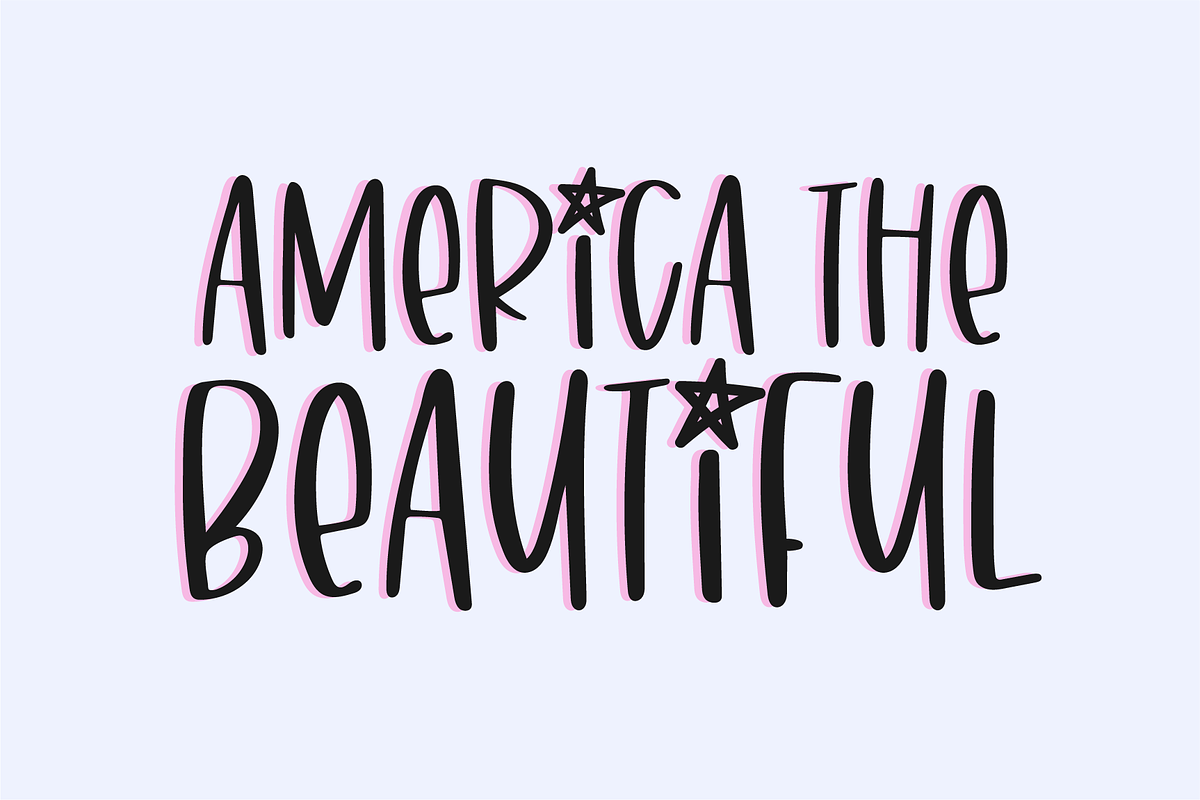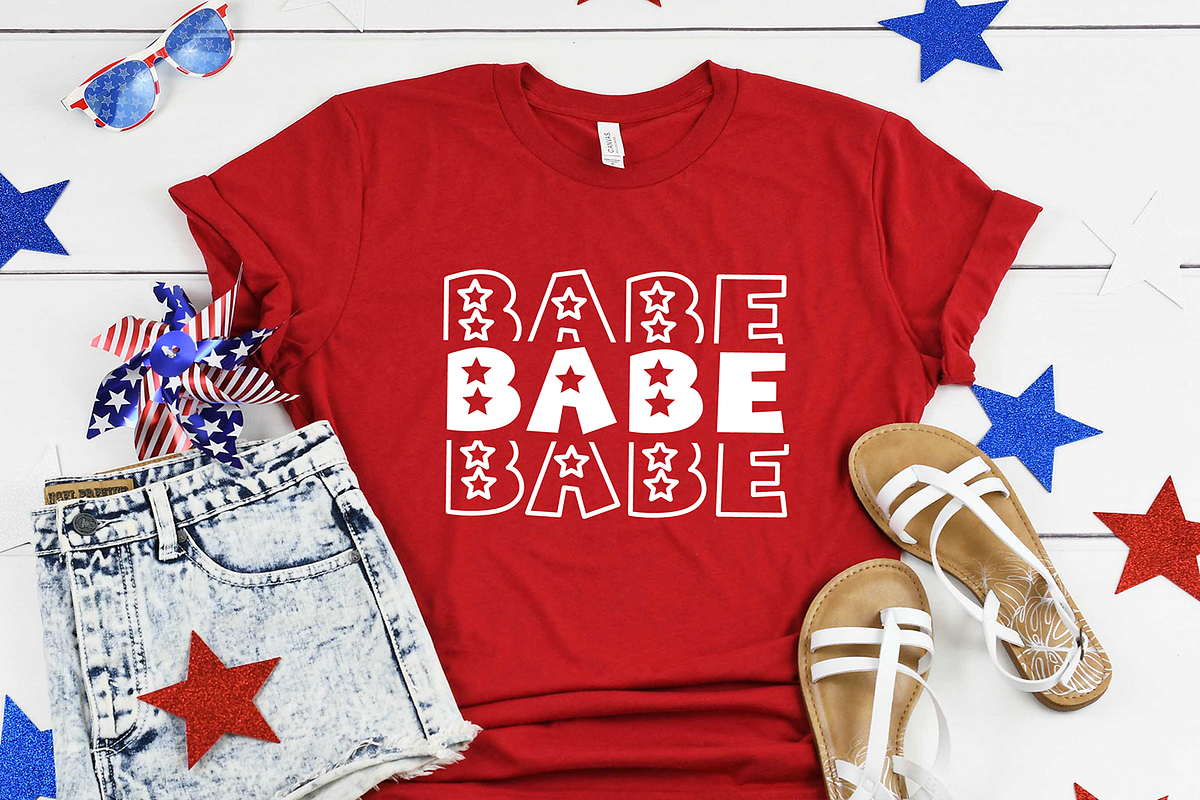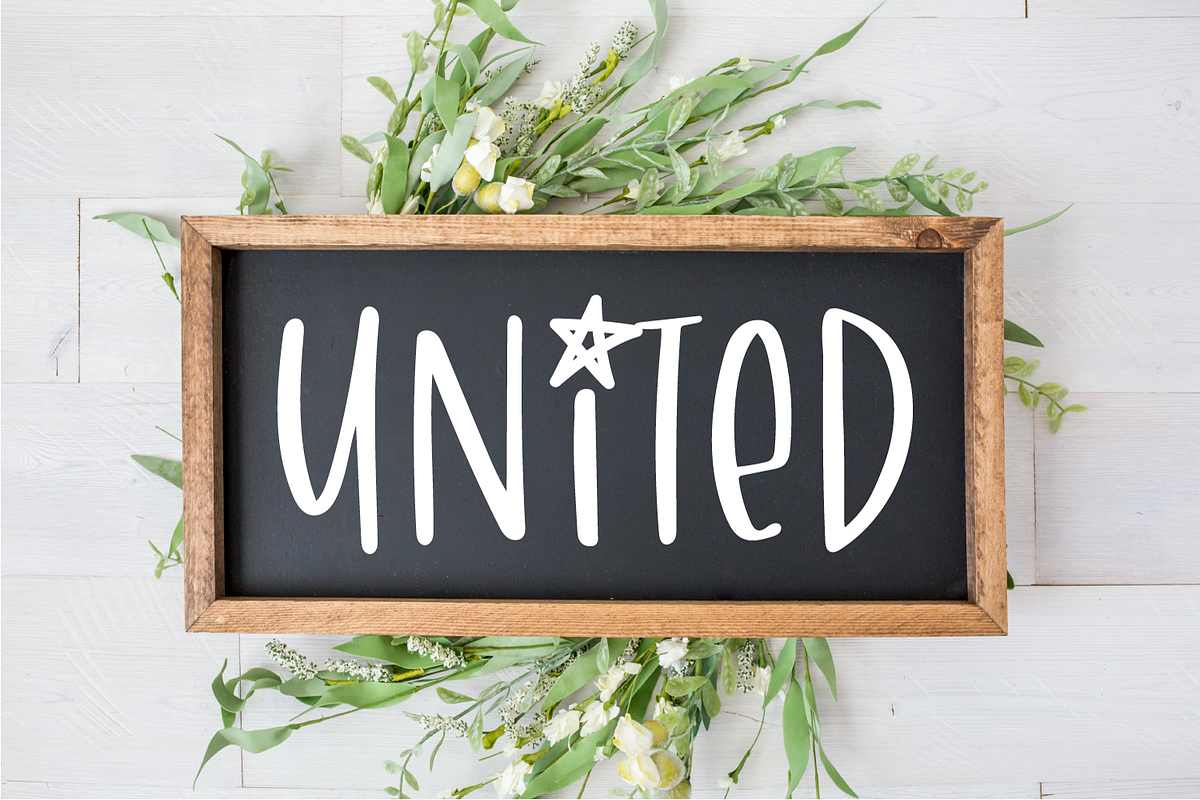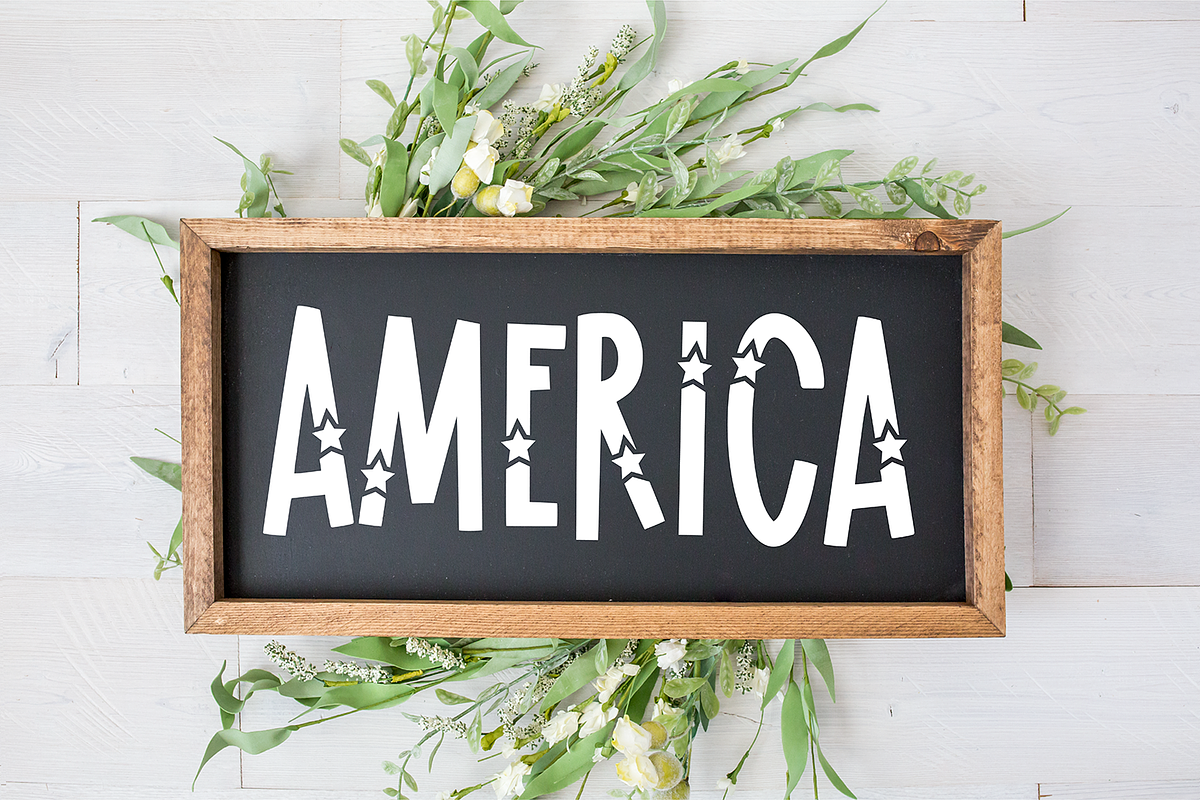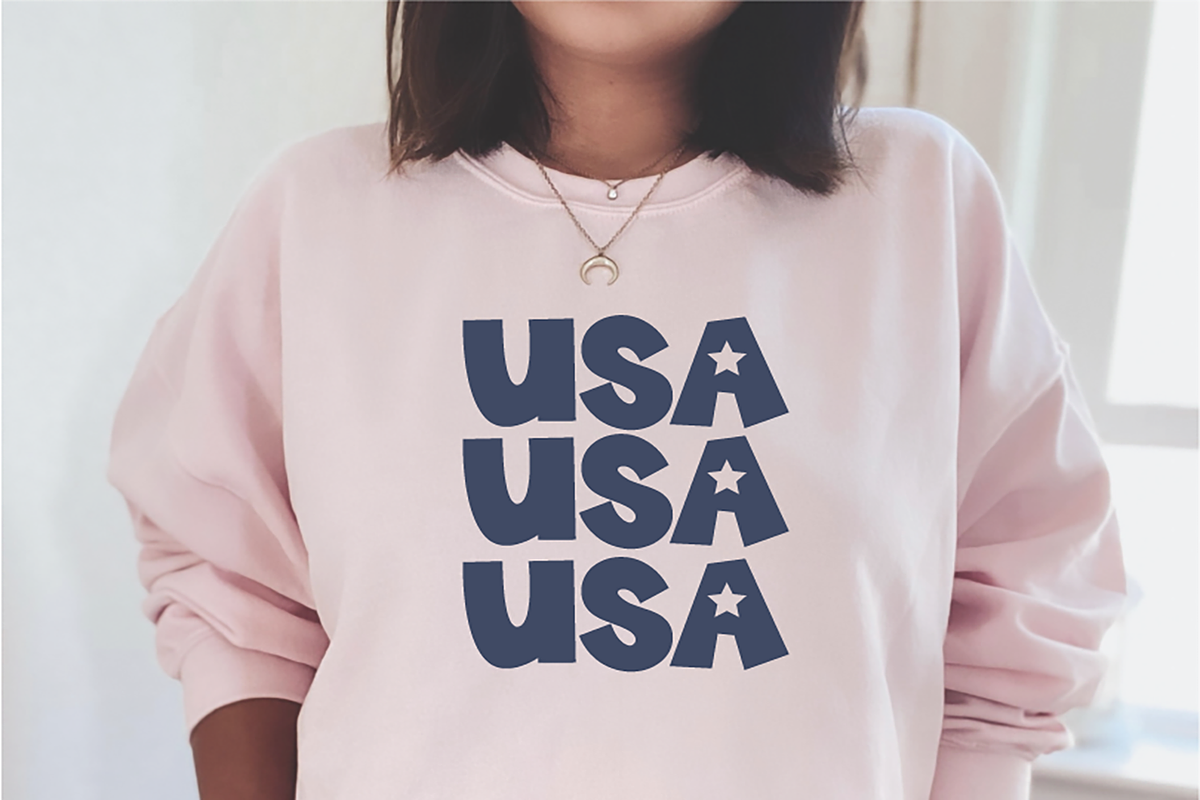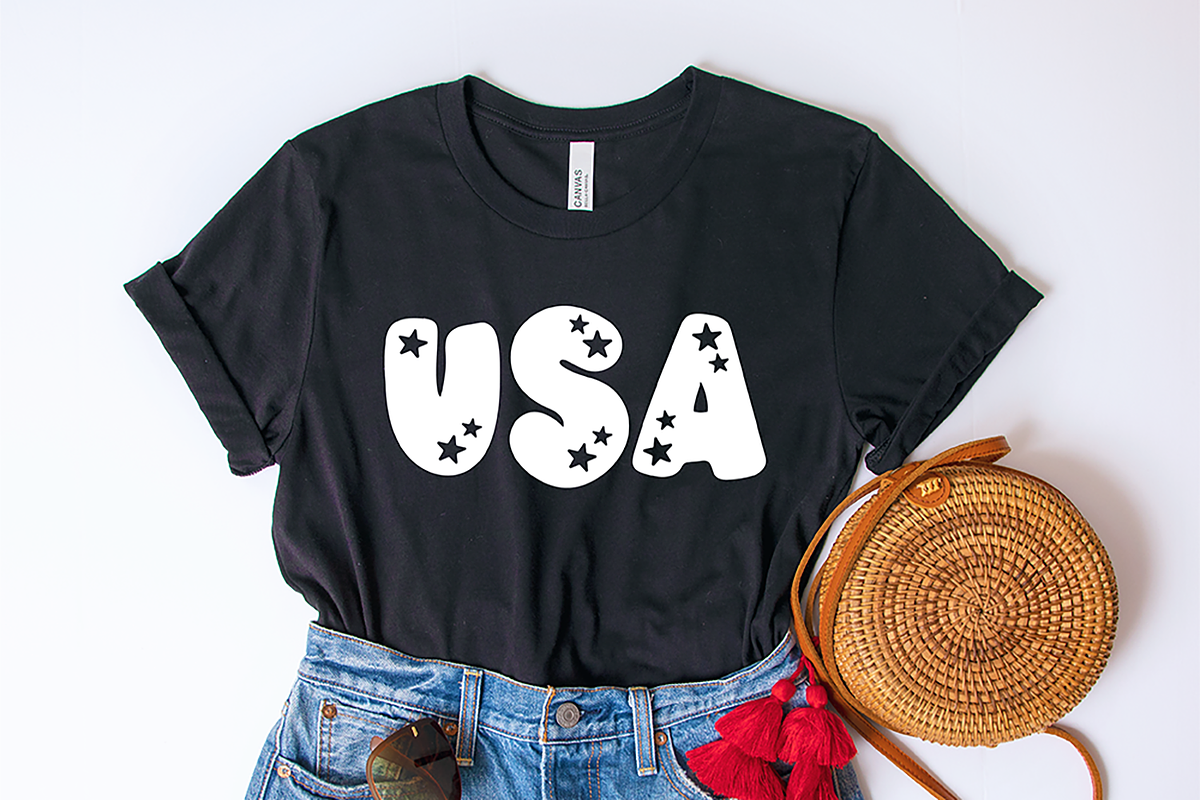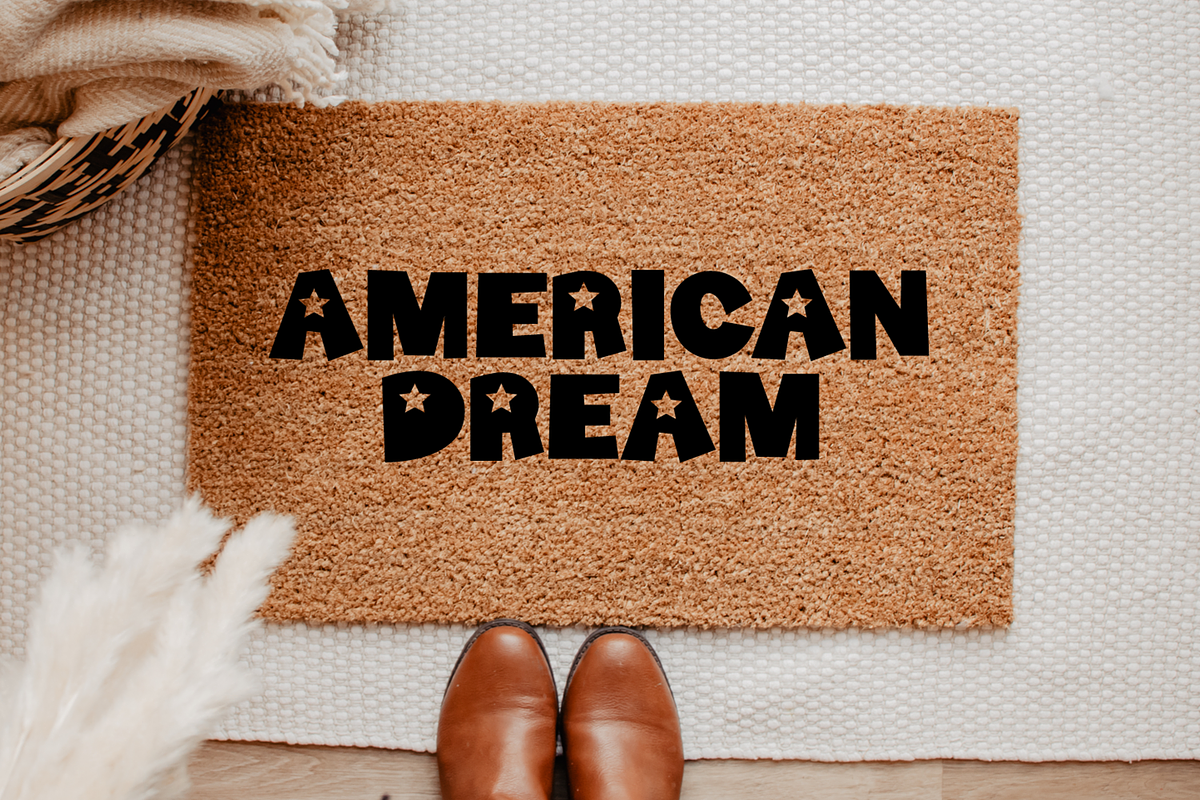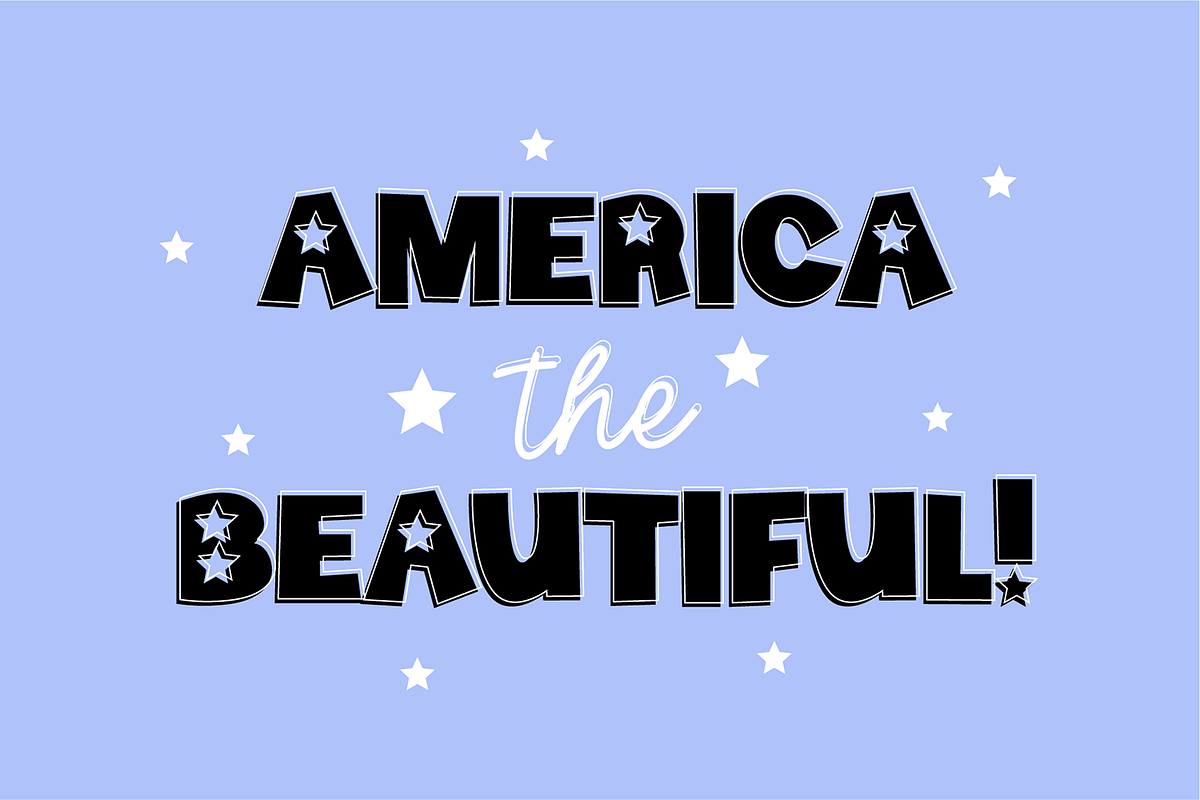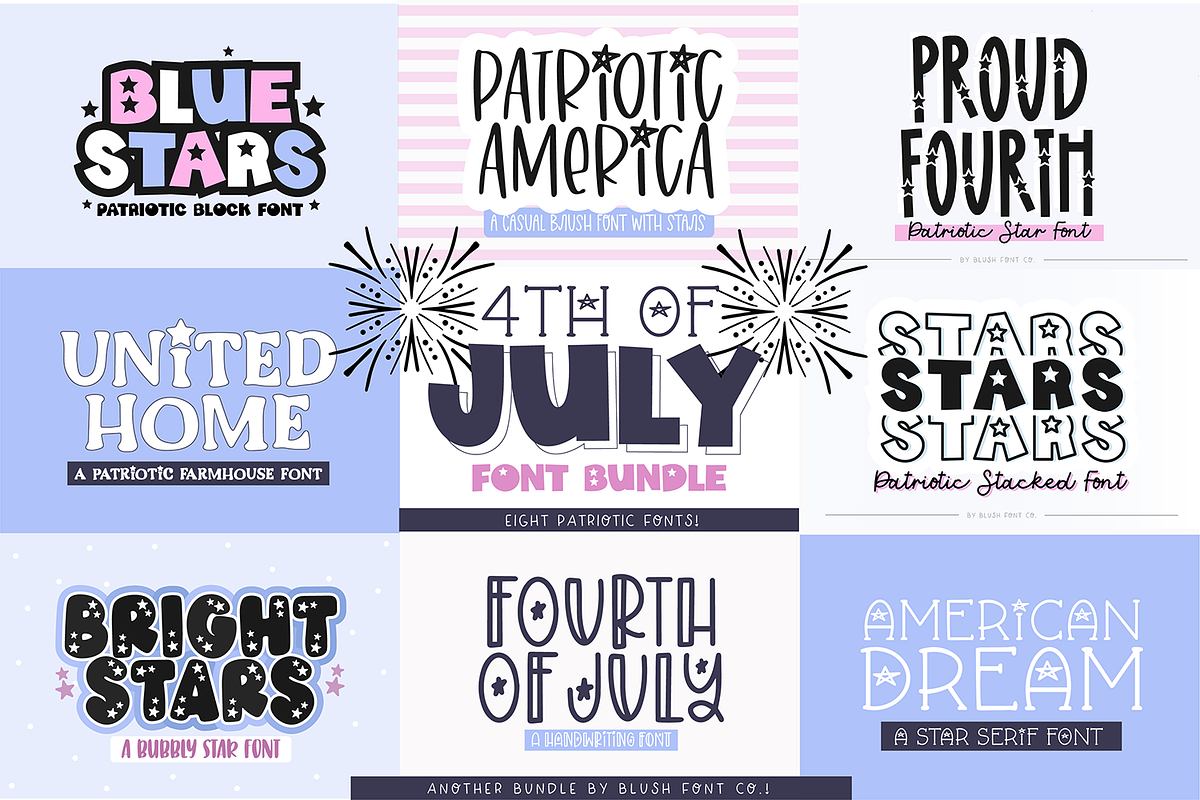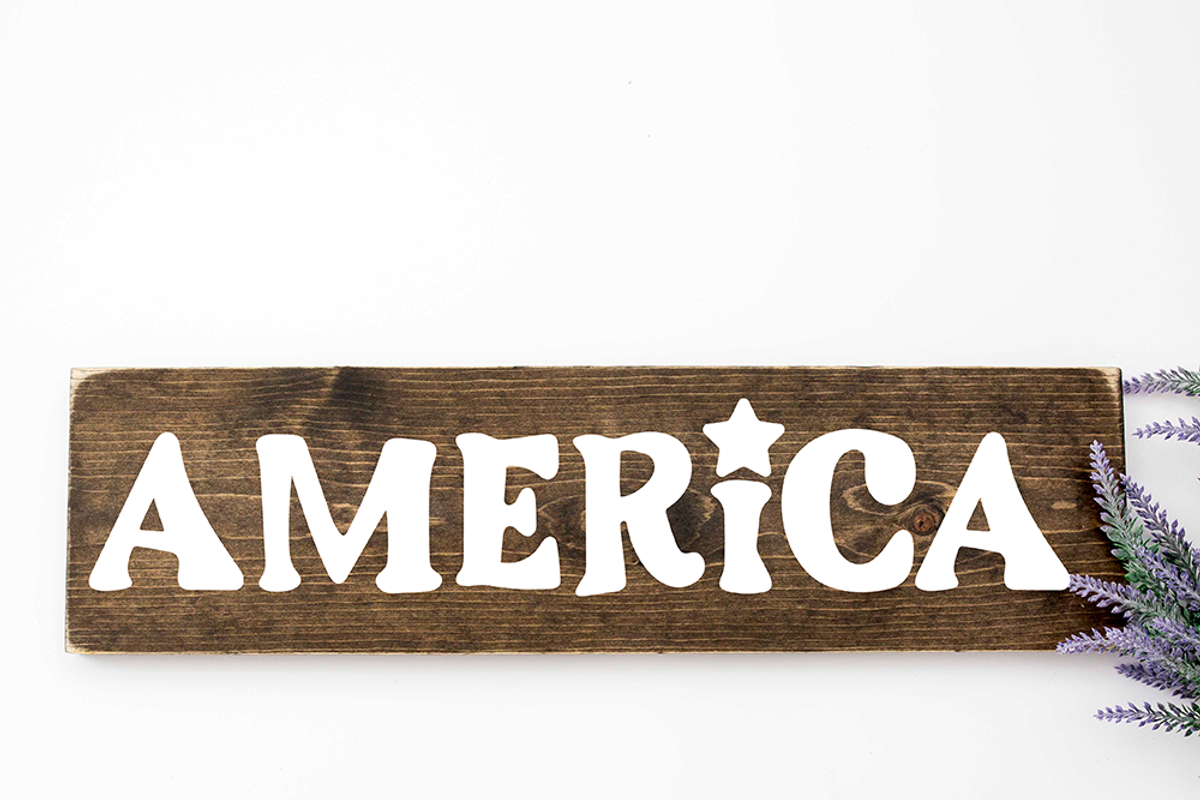
4TH OF JULY Font Bundle
4th of July font bundle! Vol. 1
8 patriotic fonts included. These can also be used for birthdays or other parties!
These fonts were all hand-lettered with a brush and ink, or iPad Pro.The 8 fonts included are:
UNITED HOME PATRIOTIC AMERICA BRIGHT STARS STARS STACKED BLUE STARS FOURTH OF JULY AMERICAN DREAM PROUD FOURTH